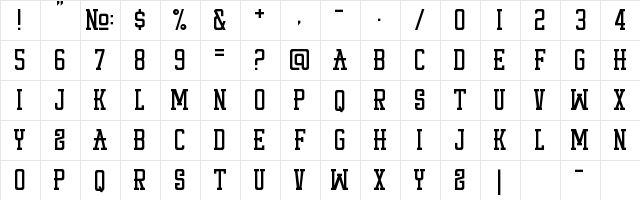
STAY PUNX Regular
Design Context for STAY PUNX Typeface
STAY PUNX offers clean, dependable letterforms without strong stylistic allegiance, making it a practical choice for designers who need flexibility.